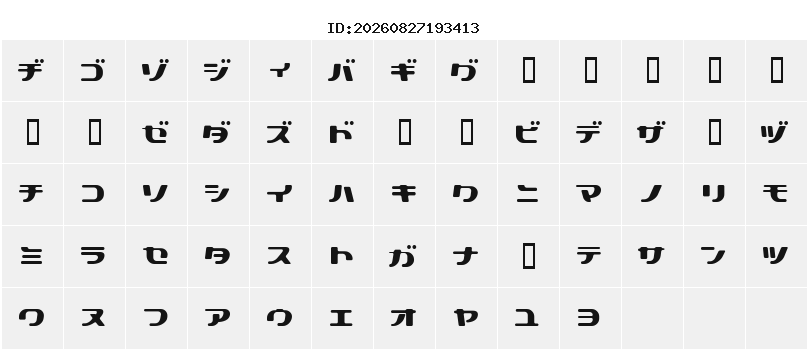
technopolish Preview
• Font Name: technopolish
• Full Font Name: technopolish
• PostScript Name: technopolish
• Character Count: 84
About technopolish.ttf
technopolish.ttf is a modern, elegant sans-serif font designed for ultimate readability and visual harmony. Perfect for branding, headlines, web design, and print materials.